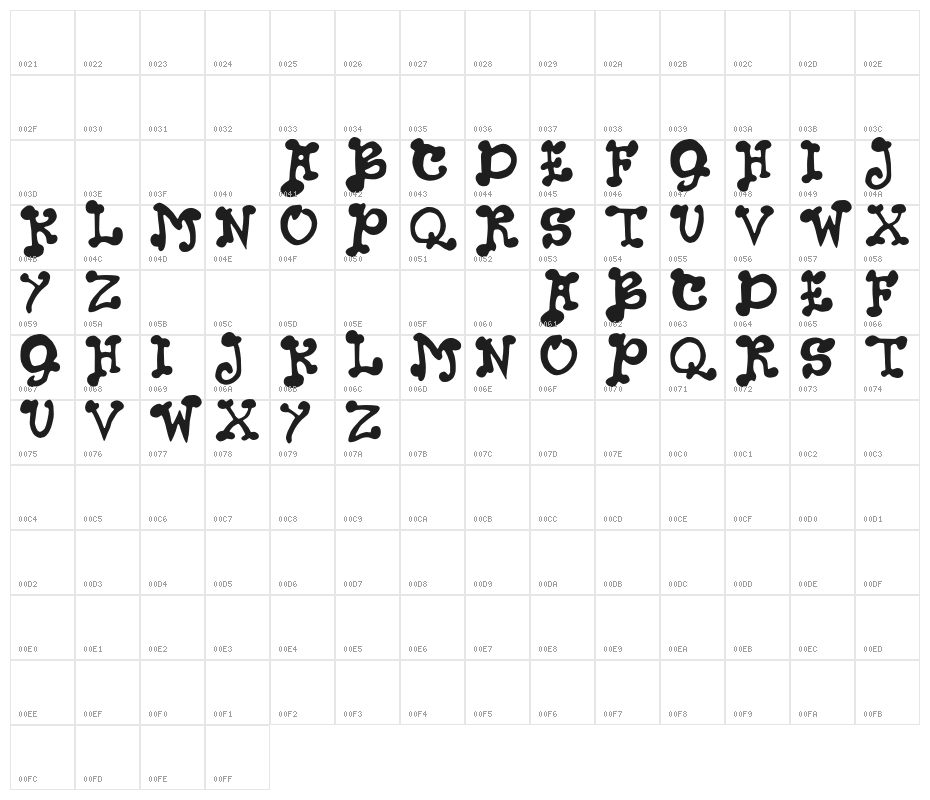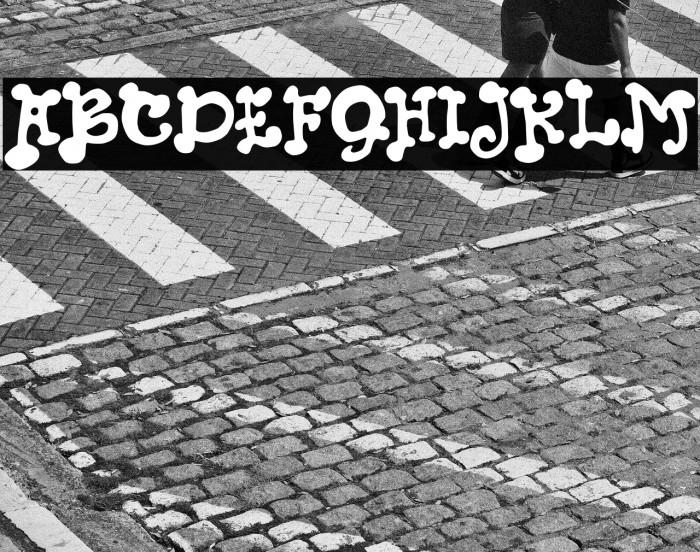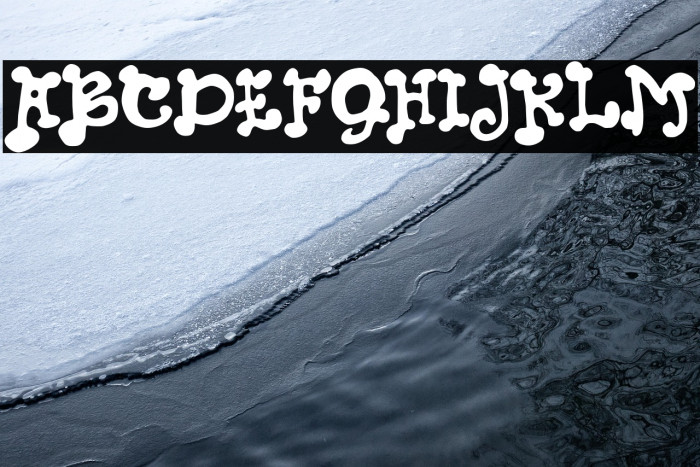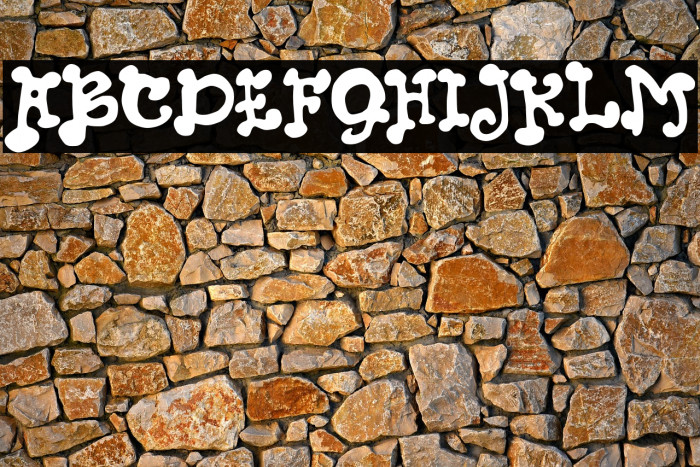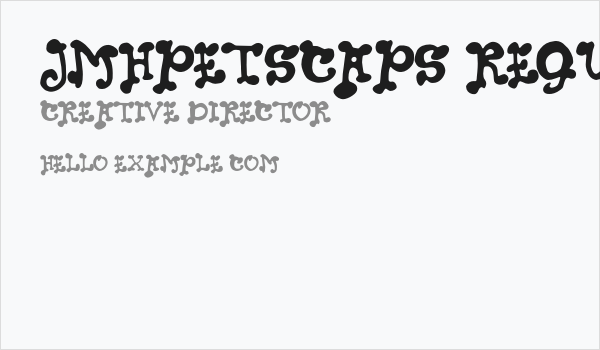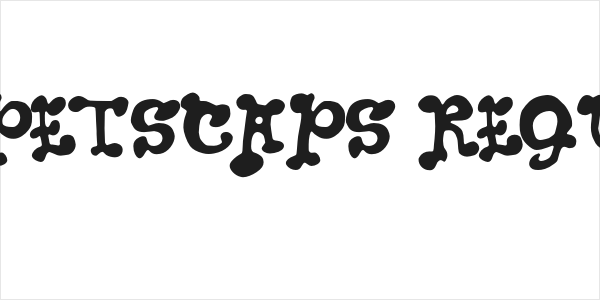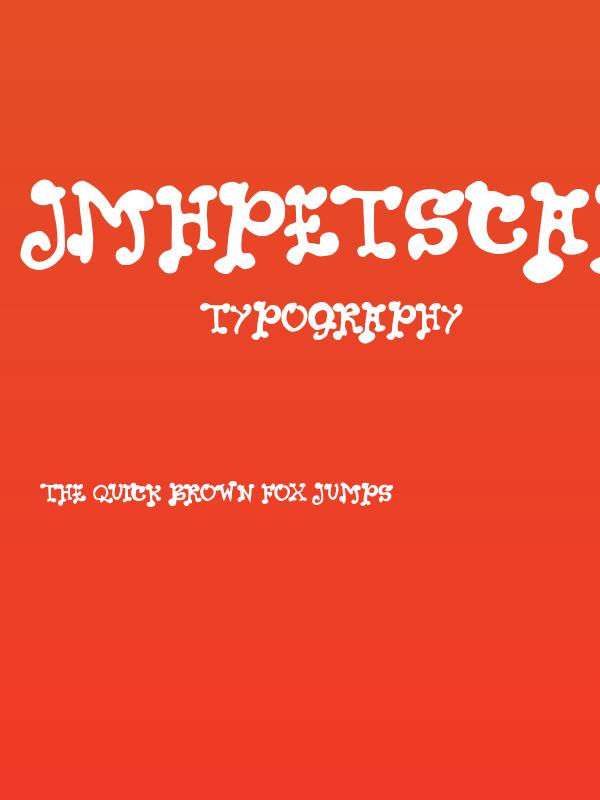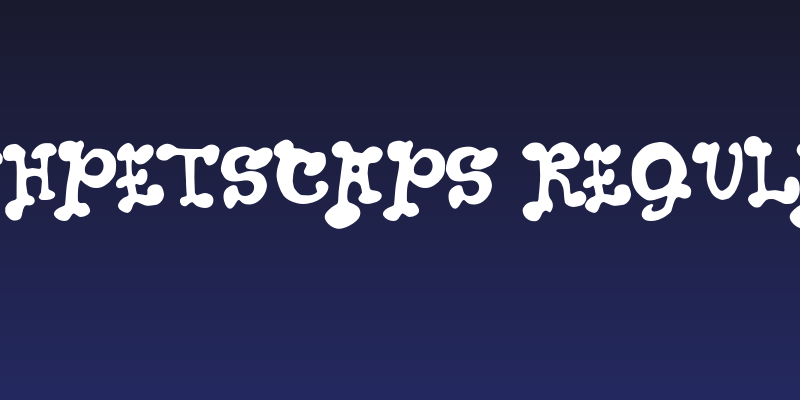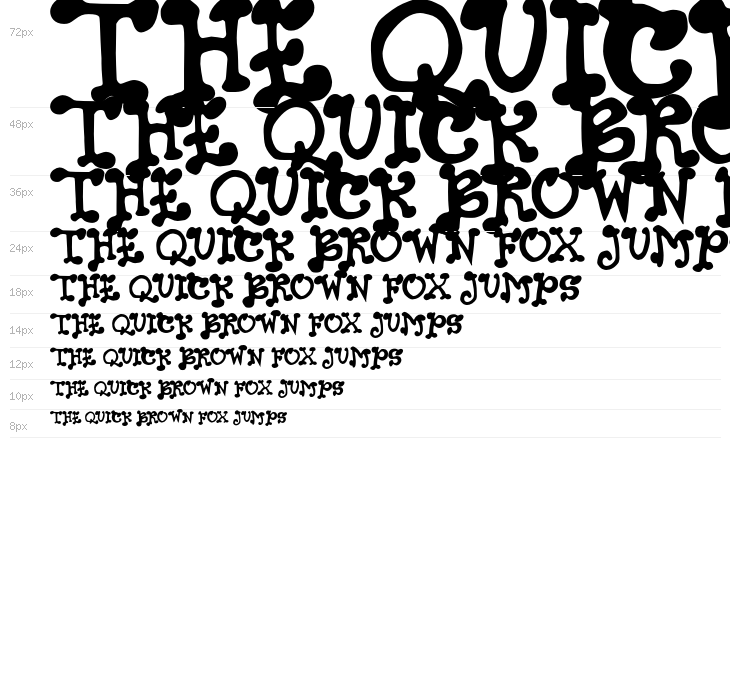
JMHPETSCAPS-Regular Font
JMHPETSCAPS-Regular Description
This font features a playful and whimsical design, characterized by its bold and rounded letterforms. Each character is adorned with unique bulbous terminals that give the font a distinctive, cartoonish appearance. The strokes are thick and consistent, contributing to a strong visual impact. The font's style is reminiscent of retro or vintage designs, making it suitable for projects that require a fun and engaging aesthetic. Its decorative nature makes it ideal for headlines or titles where a touch of personality is desired.
| Proposed Projects | Ideal for children's book covers, playful branding, party invitations, and retro-themed designs. |